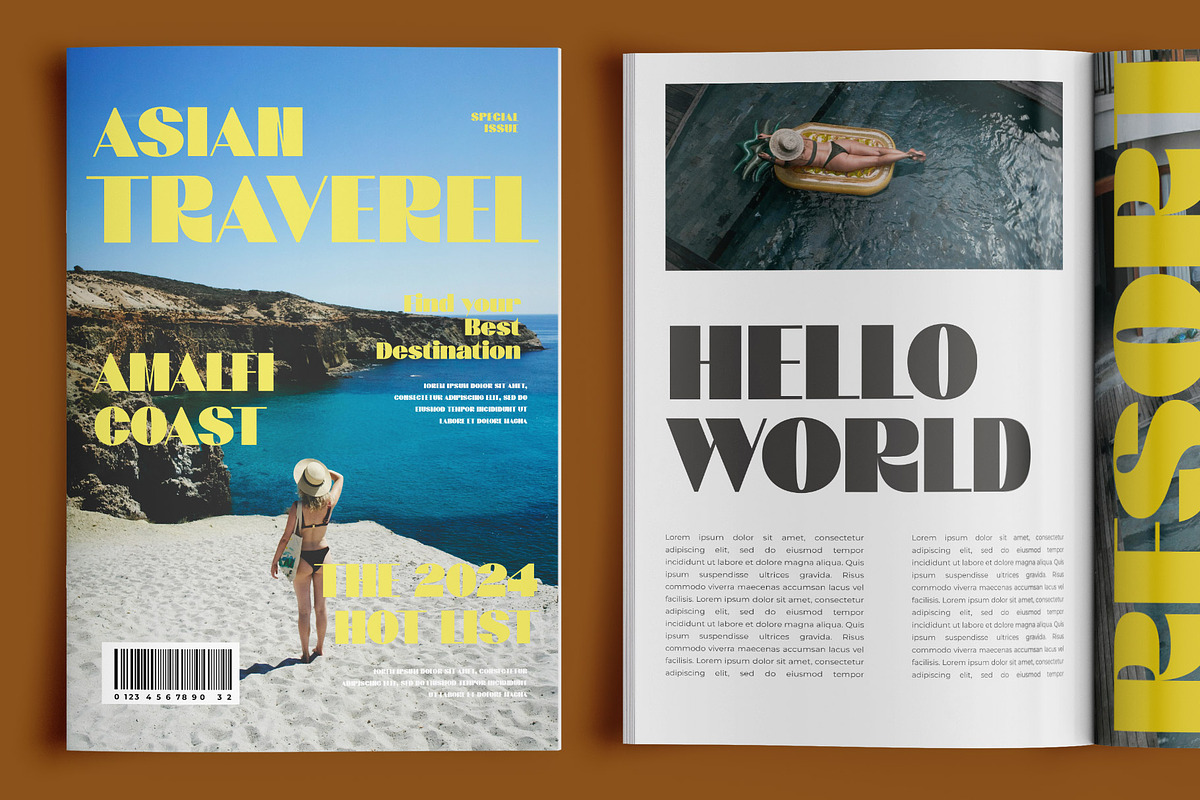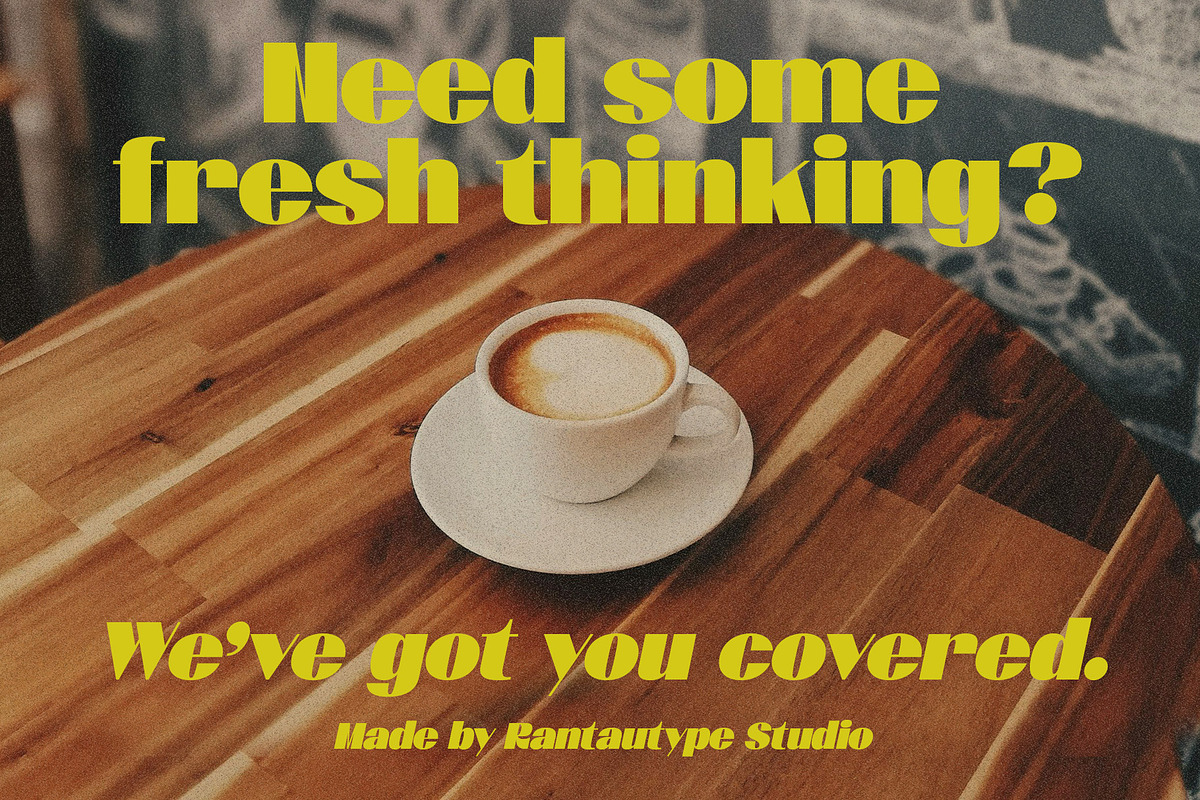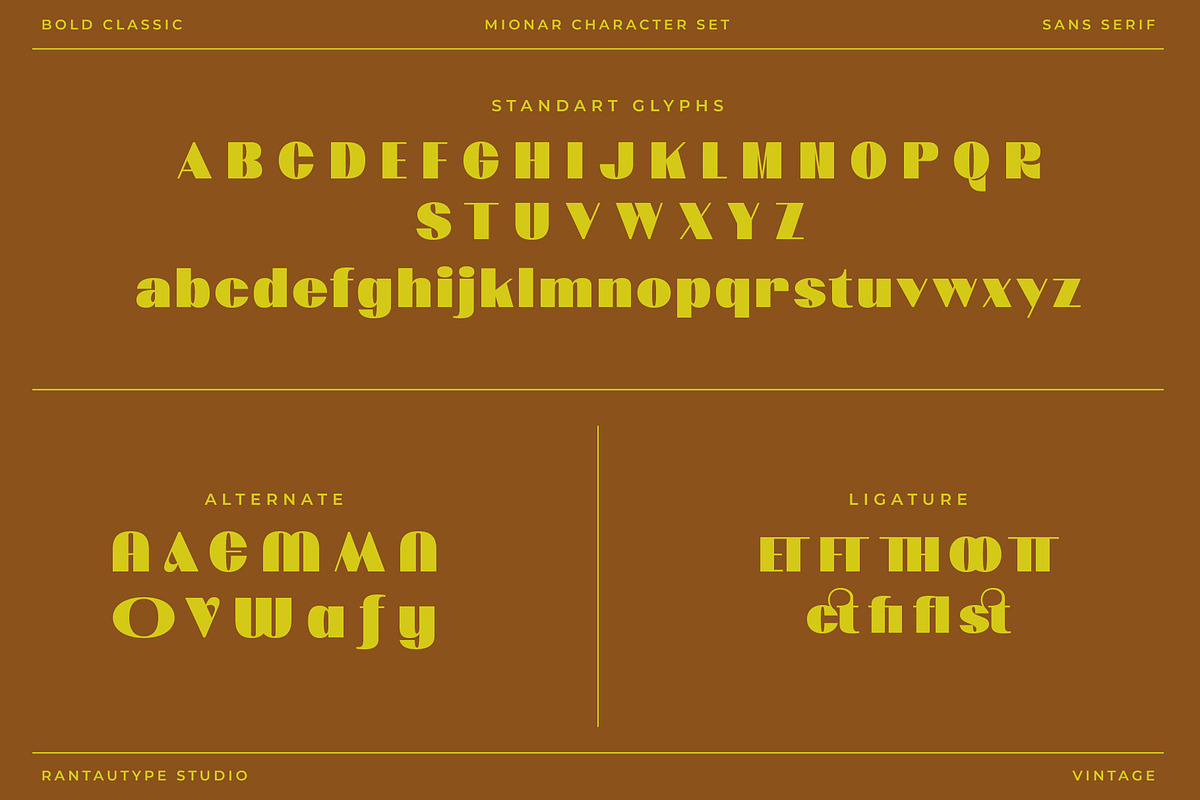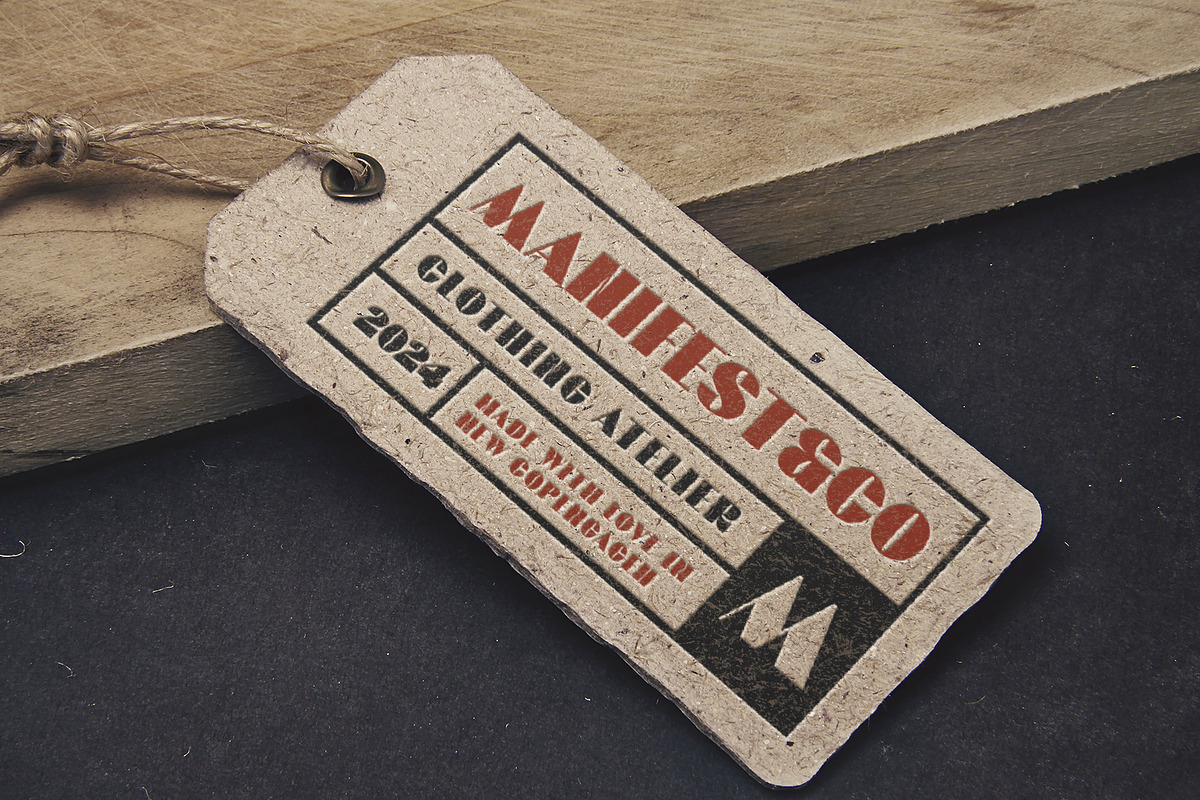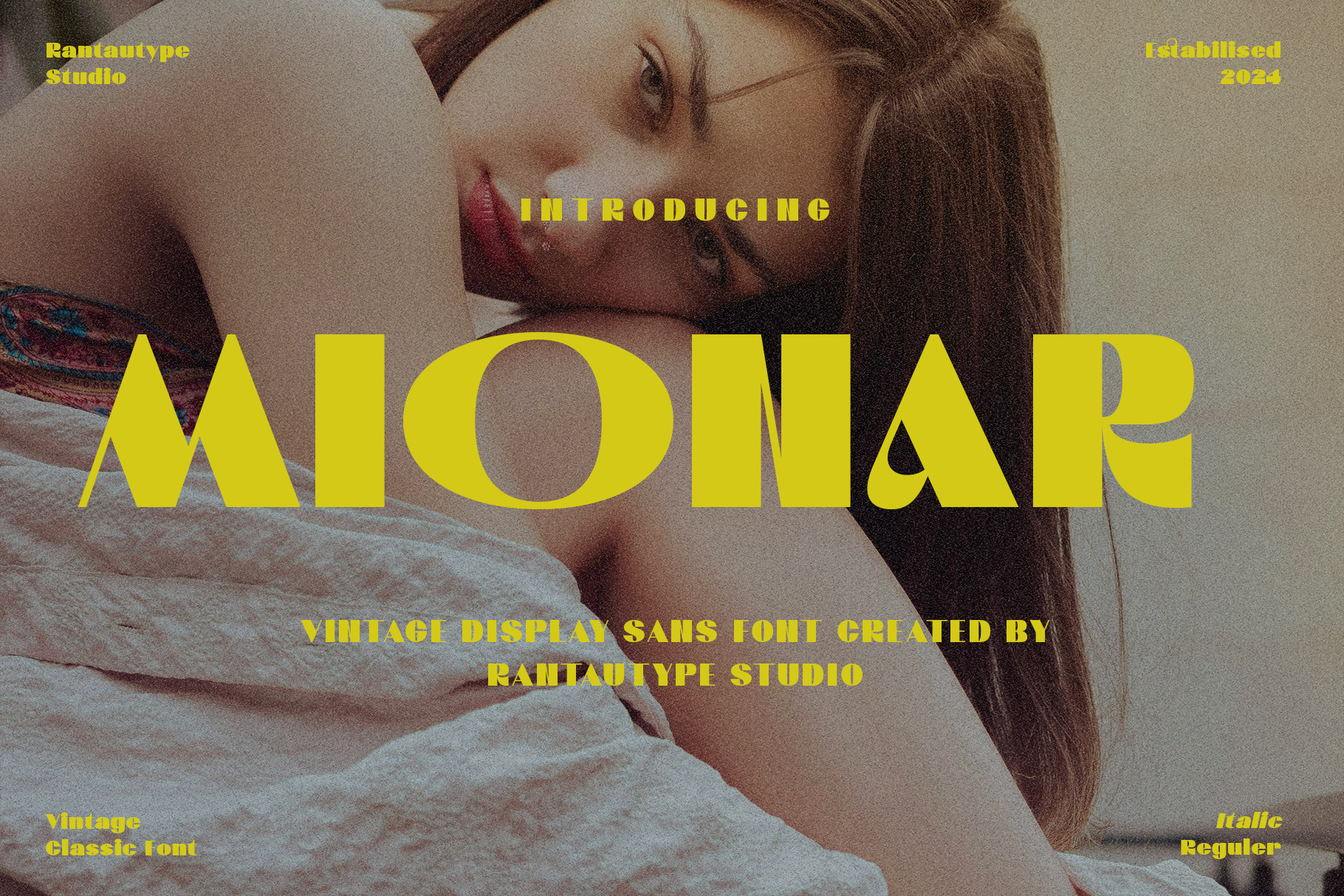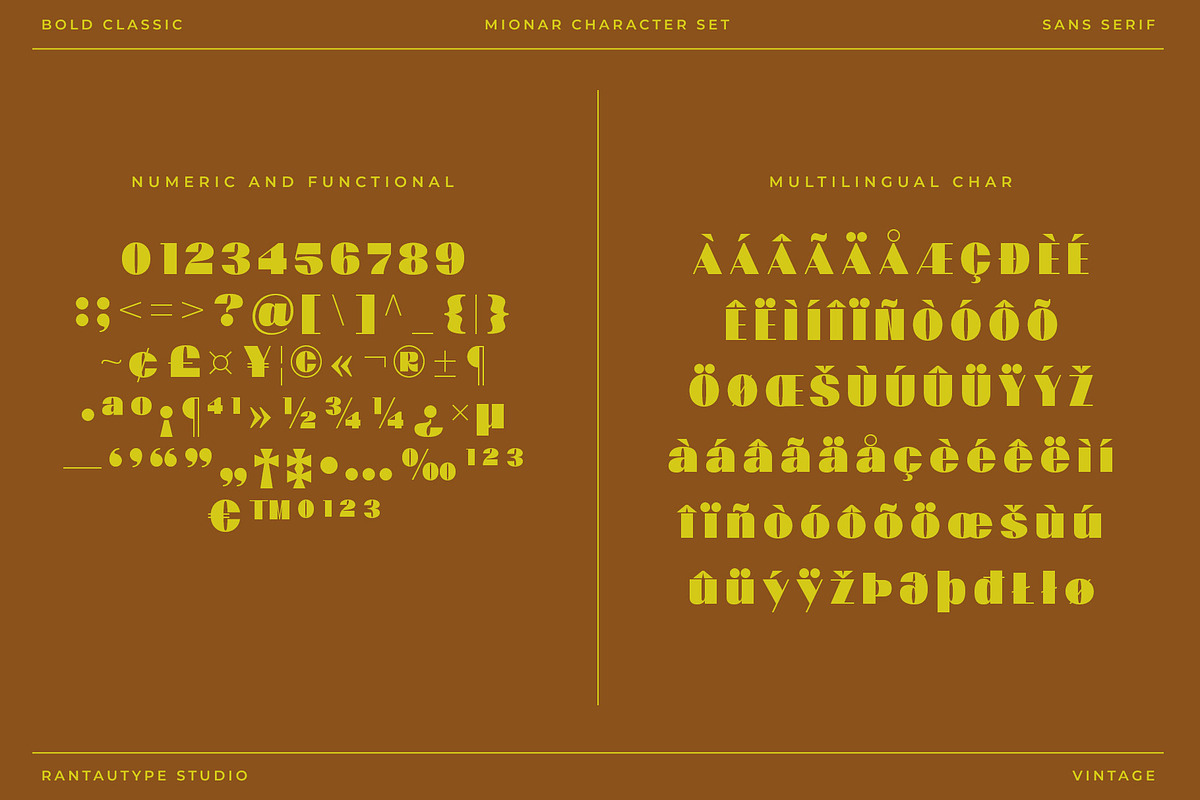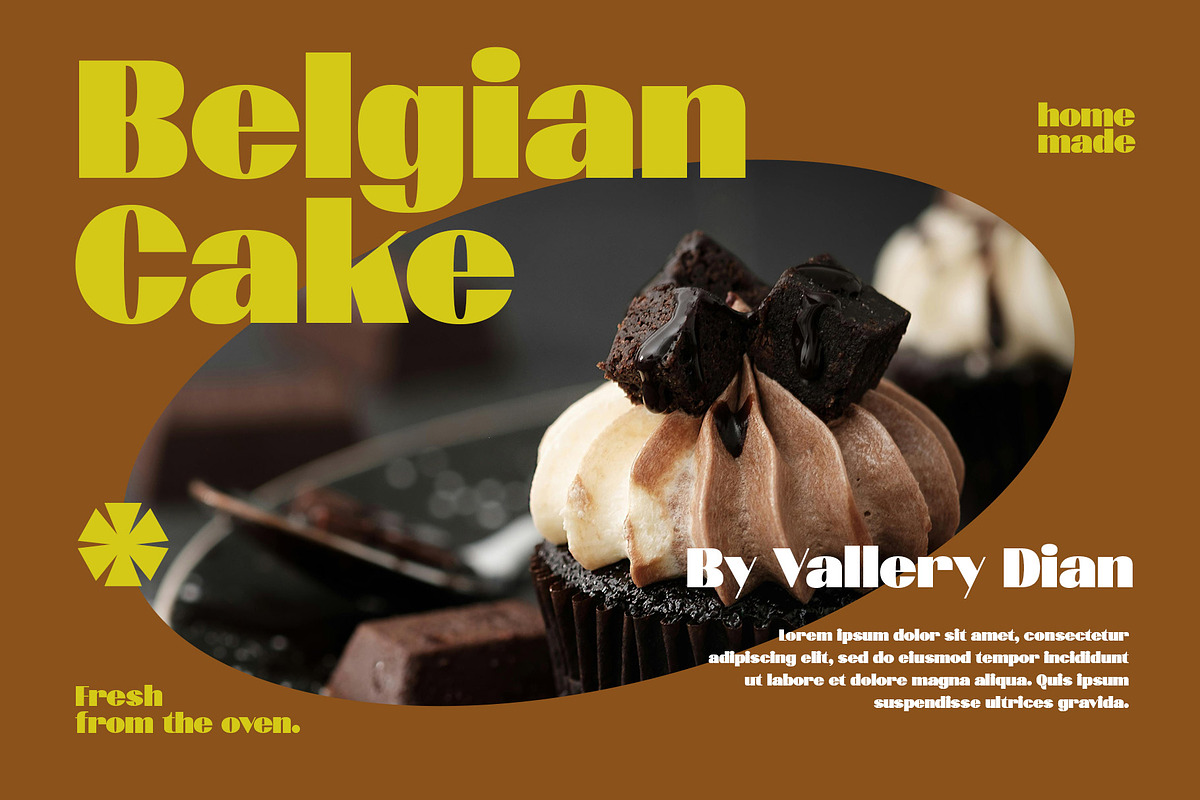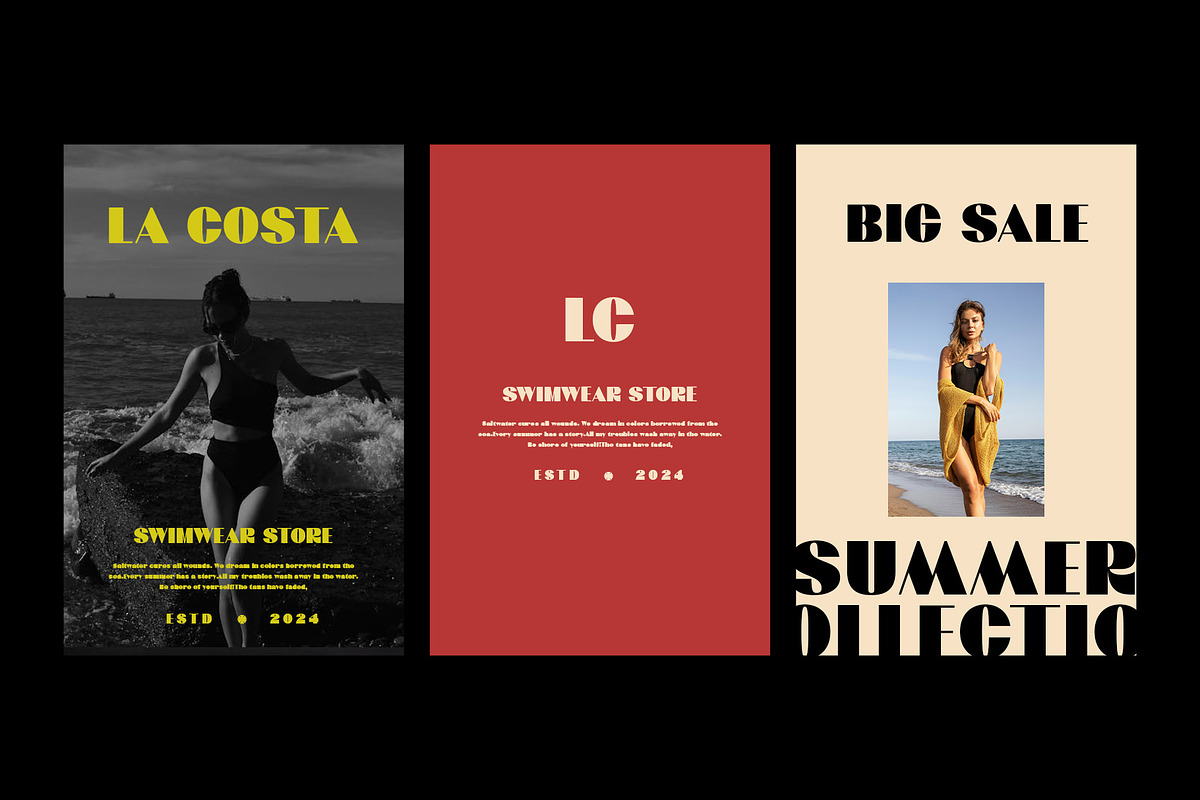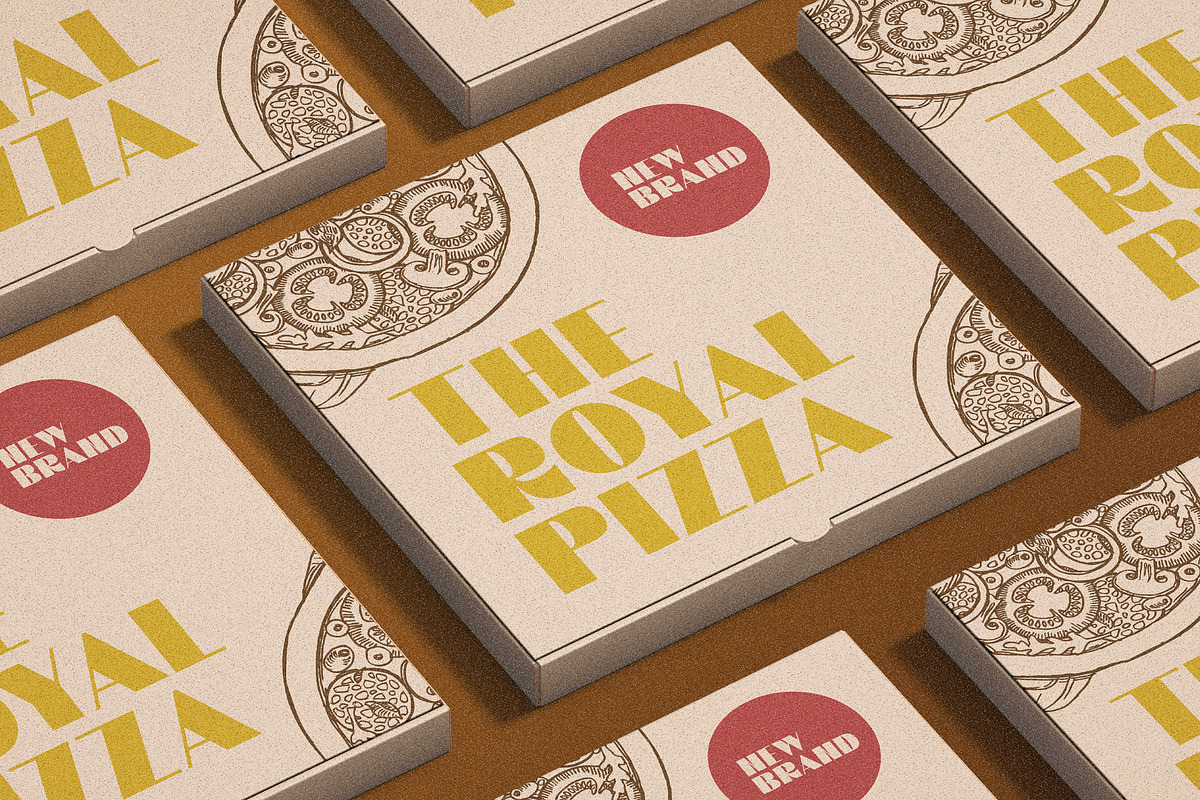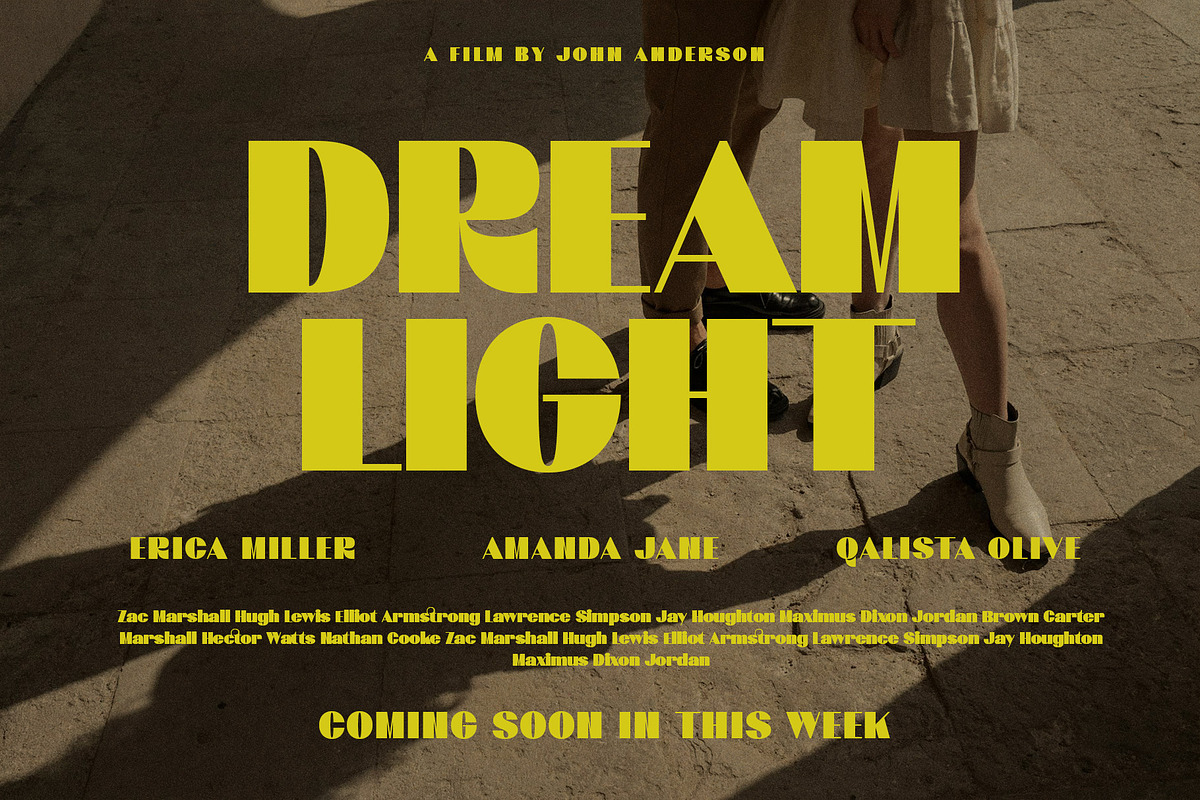
Mionar Vintage Bold Sans Font
Mionar is sans serif font with bold, clean and look tightly. Mionar come with minimal white space to appear vintage. Mionar is a perfectly choice for any creative endeavor, chic, lifestyle design such as logotype, advertisements, watermark on photography, stationery, branding project, display and magazine, invitation, corporate brand, product design, label, business project and many other project with modern or vintage touch.
- Standart Glyphs
- Alternate and ligature
Fonts include Multilingual Character for: Afrikaans, Albanian, Asu, Basque, Bemba, Bena, Breton, Chiga, Cornish, Dutch, English, Estonian, Filipino, Finnish, Friulian, Galician, Gusii, Indonesian, Irish, Italian, Kabuverdianu, Kalenjin, Kinyarwanda, Luo, Luxembourgish, Luyia, Machame, North, Oromo, Portuguese, Quechua, Romansh, Rombo, Rundi, Rwa, Samburu, Sango, Sangu, Scottish, Gaelic, Sena, Shambala, Shona, Soga, Somali, Spanish, Swahili, Swedish, Swiss, German.